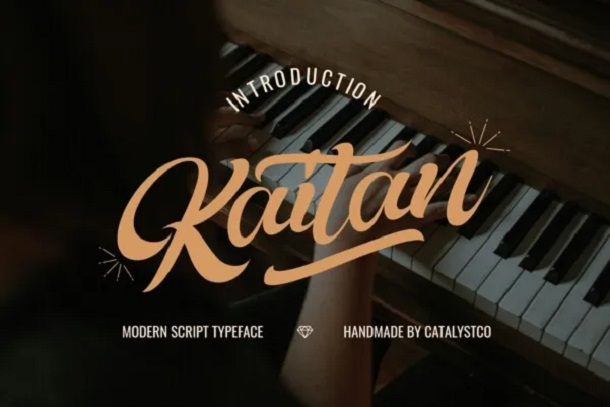
Kaitan Font
Kaitan Font – Modern Serif typeface suitable for quotes, logotype, magazine header and etc. The basic version includes all the uppercase and lowercase letters, as well as a few special characters!
Kaitan Script Font